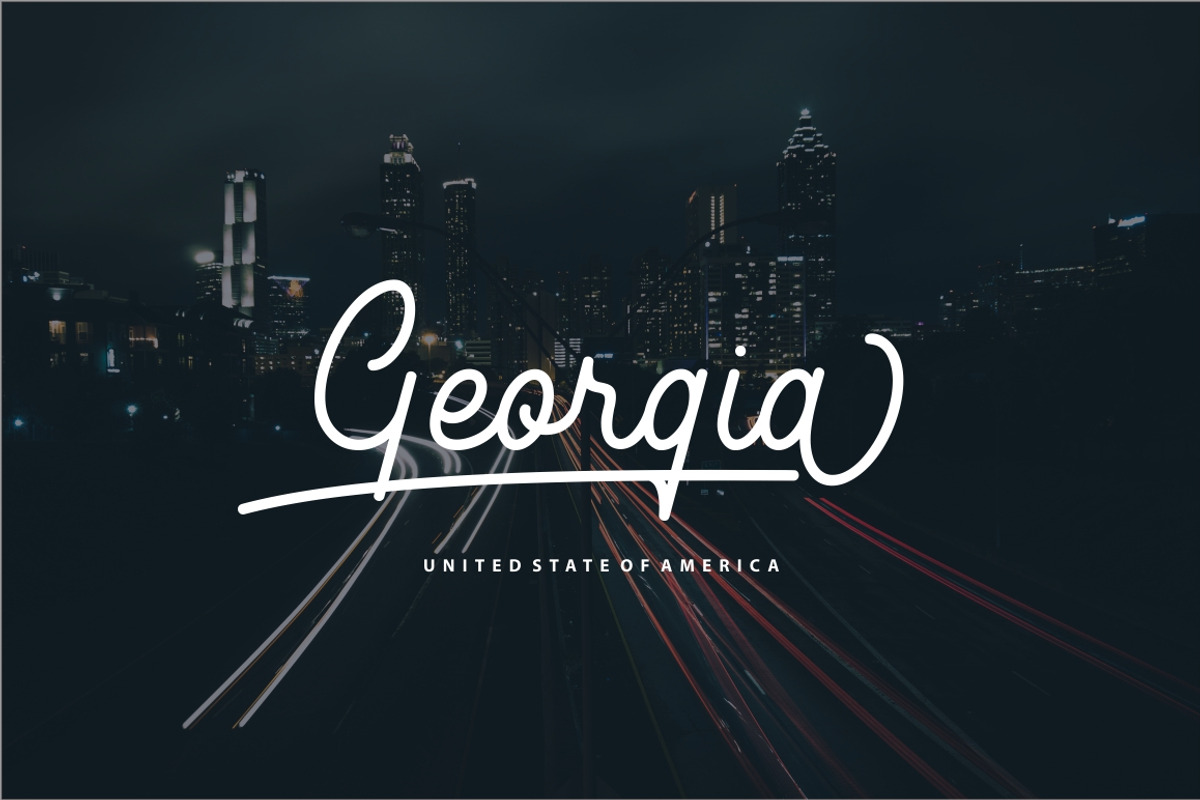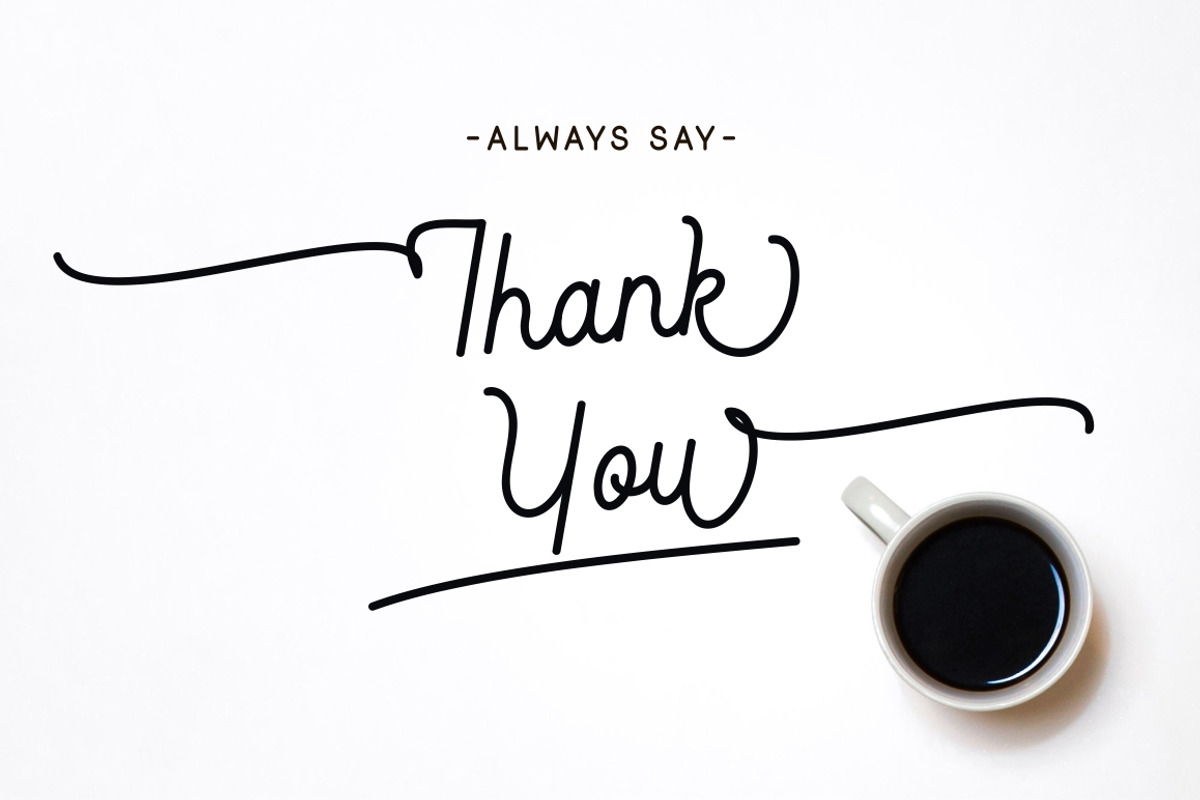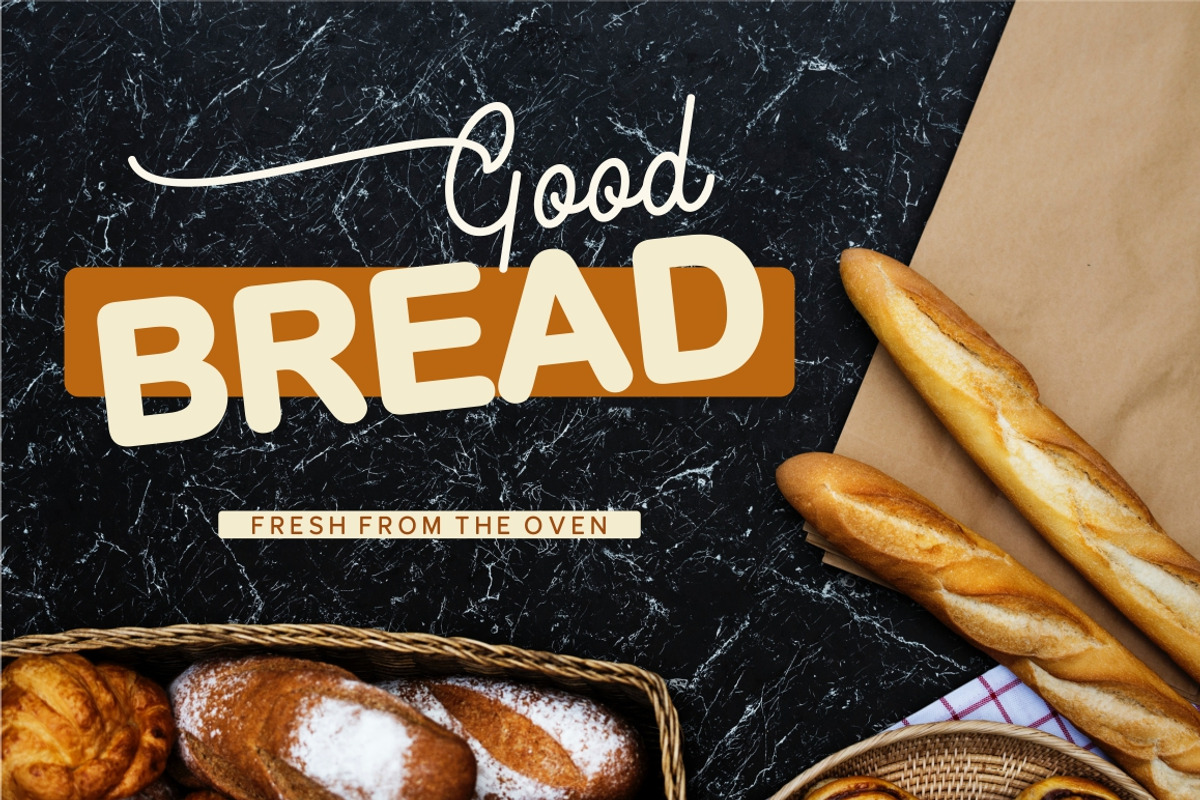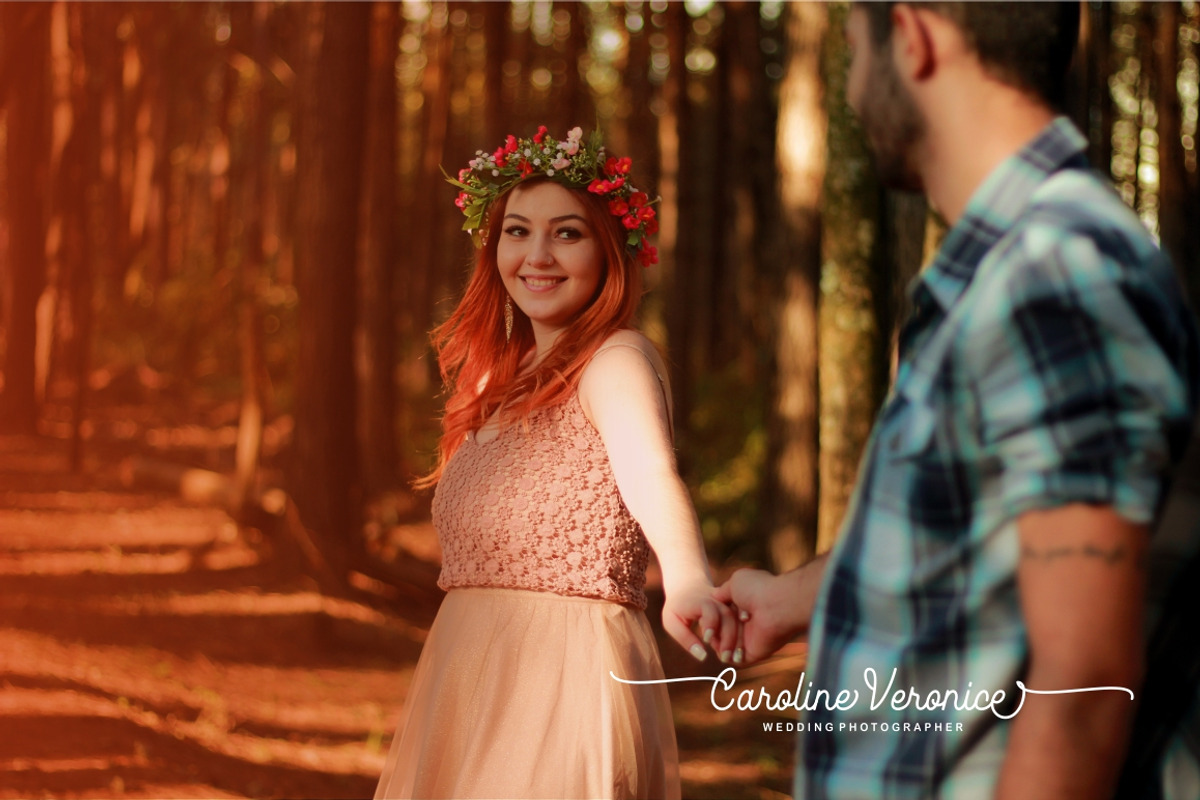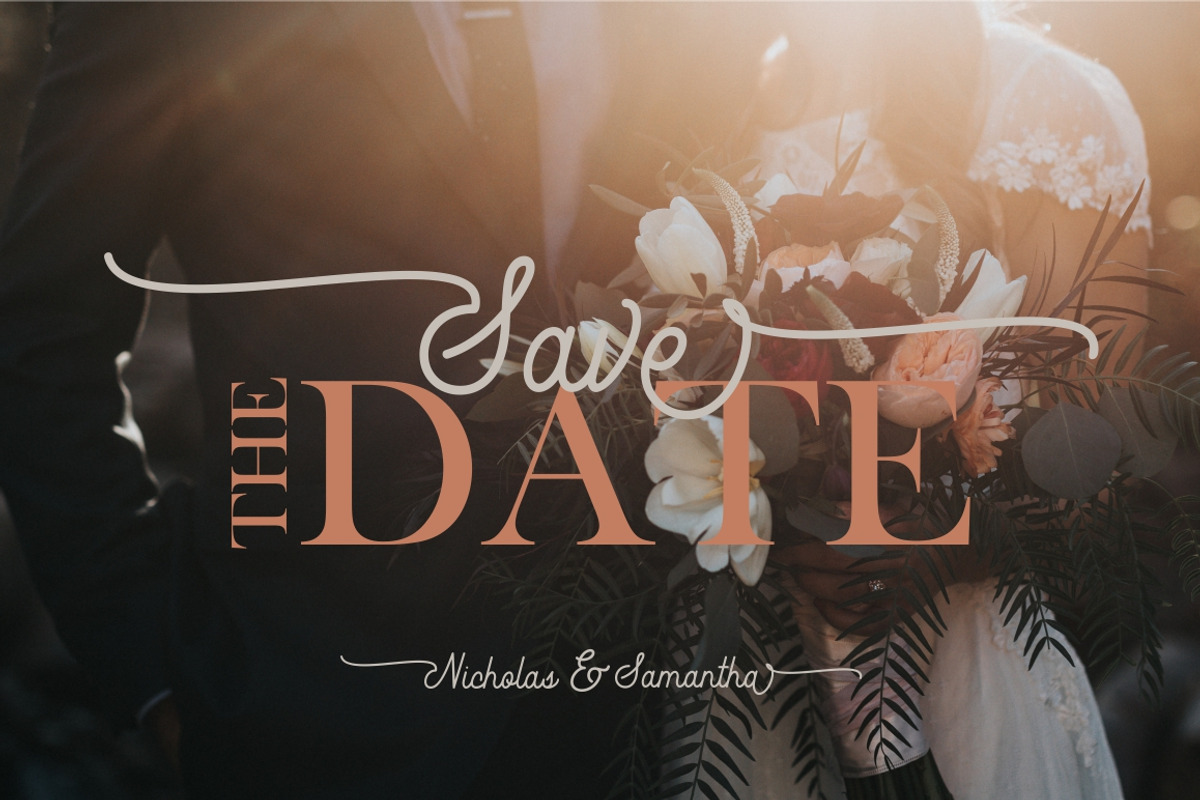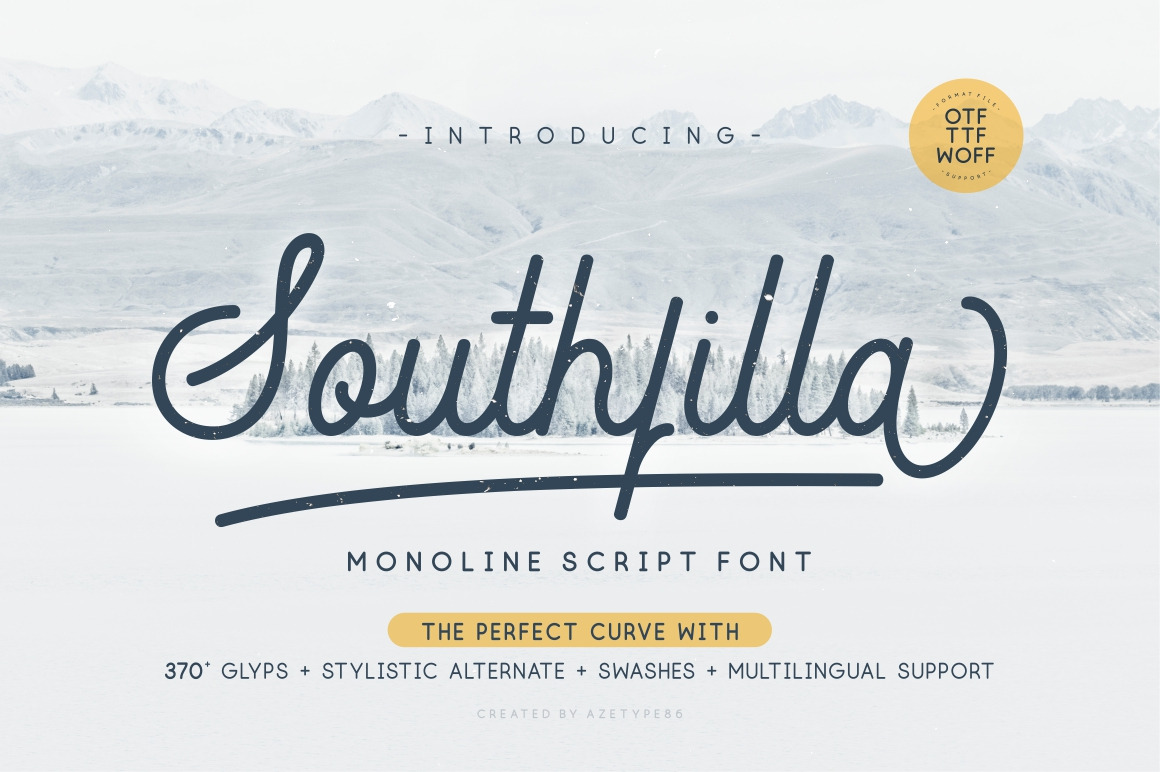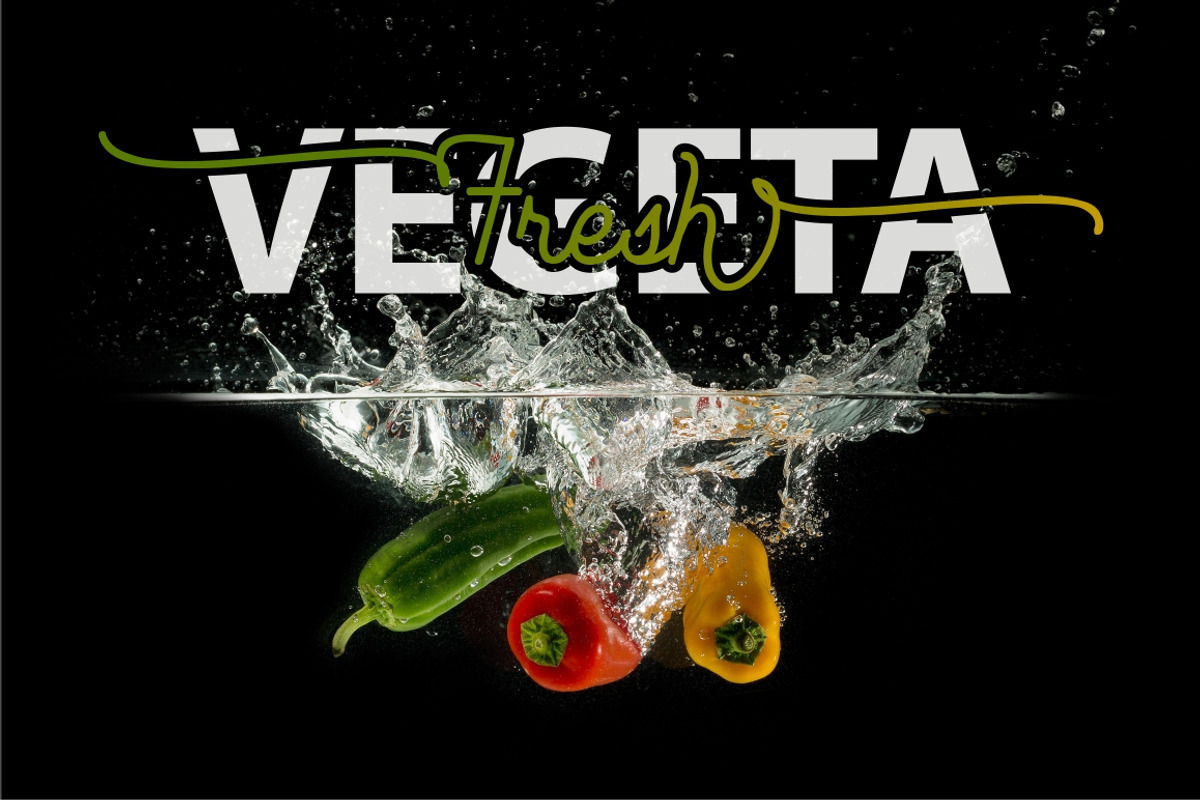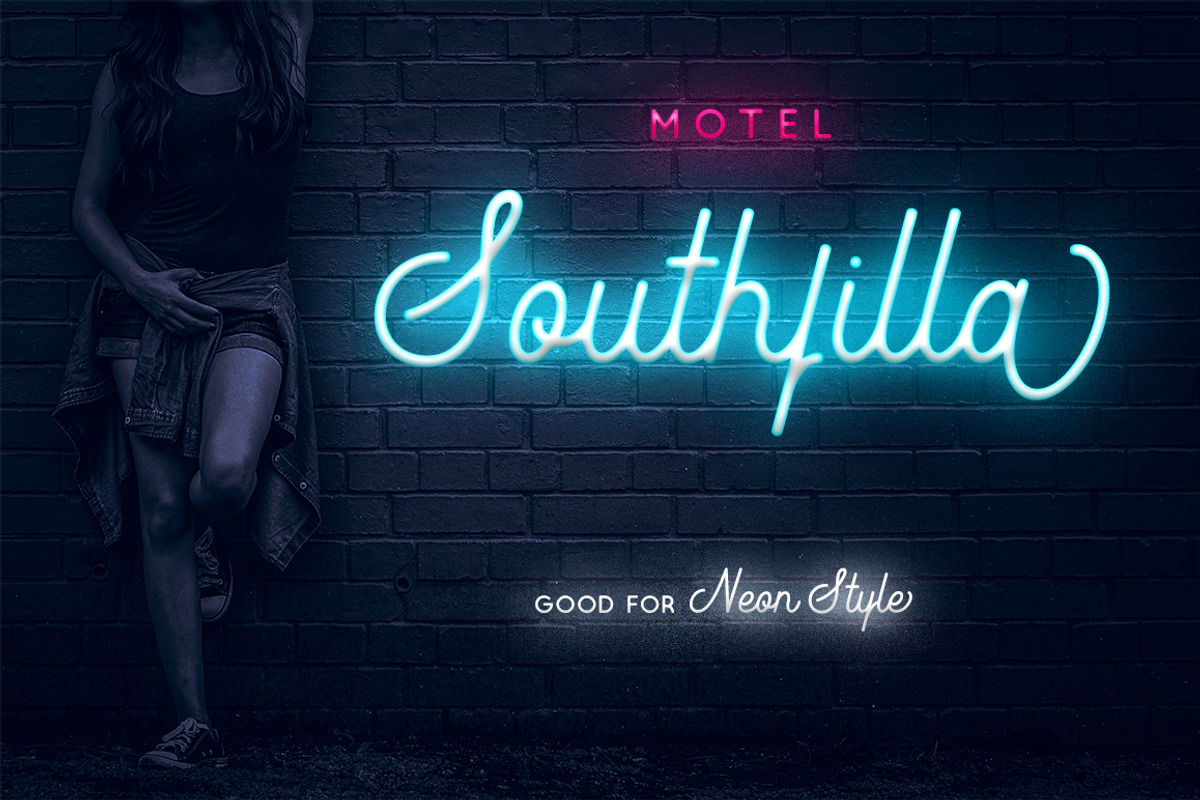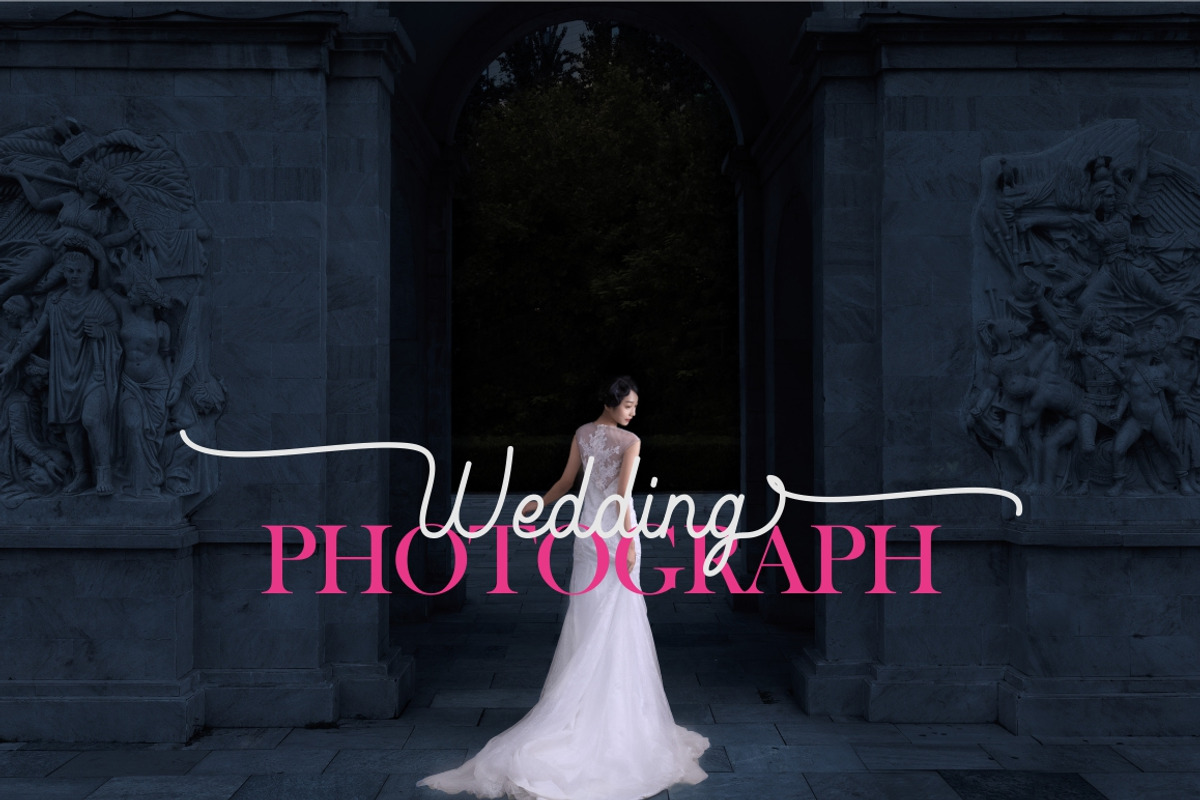
Southfilla-The Perfect Curves Font
We proud to introduce our new product, namely Southfilla-The Perfect Curves Font. Southfilla is made with love and consistency which in the end looks elegant, simple, readable with The Perfect Curves, catchy, easy to used. Southfilla Monoline Script Font is the great choice for Vintage Stationary, Food and Drink Poster, Logotype, Wedding, Neon Style, Watermark, Quotes, and your other design projects.
So, Let Southfilla works on your projects!
- Bottom Swash
- Multilingual Support Glyphs:ÀÁÂÃÄÅÆÇÈÉÊËÌÍÎÏÐÑÒÓÔÕÖØÙÚÛÜÝÞßàáâãäåæçèéêëìíîïñòóôõöøùúûüýþÿŒœŠšŸŽž
- More than 370 of glyphs
- Font include Multilingual Support for; Afrikaans, Albanian, Catalan, Danish, Dutch, English, French, German, Italian, Indonesian, Malay, Norwegian, Portugese, Spanisch, Swedish, Zulu, and many more.